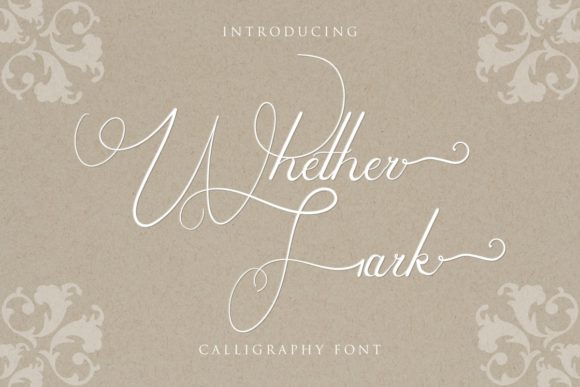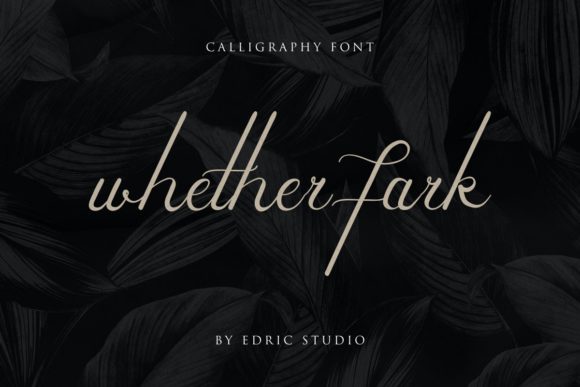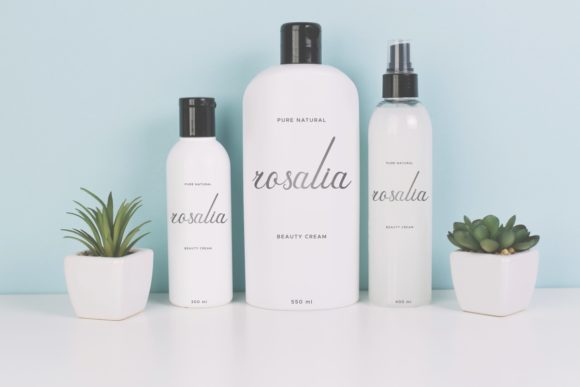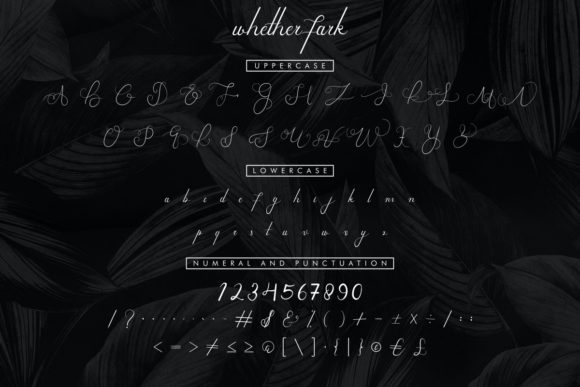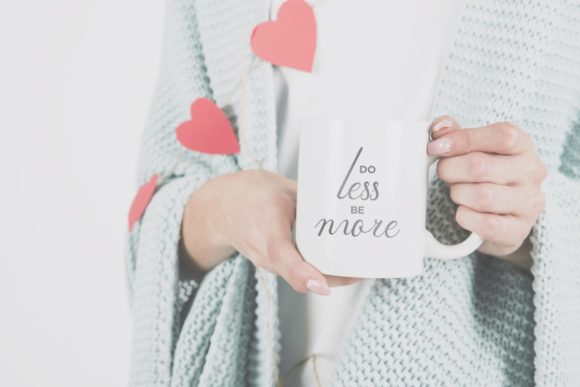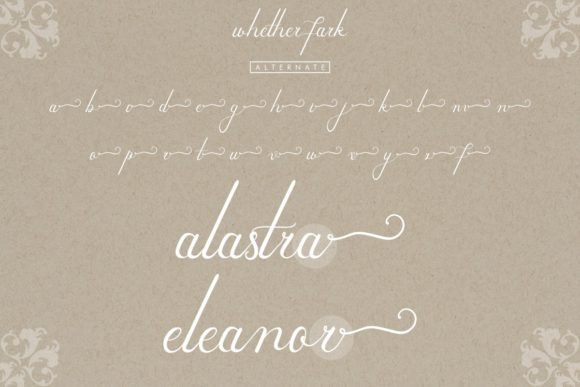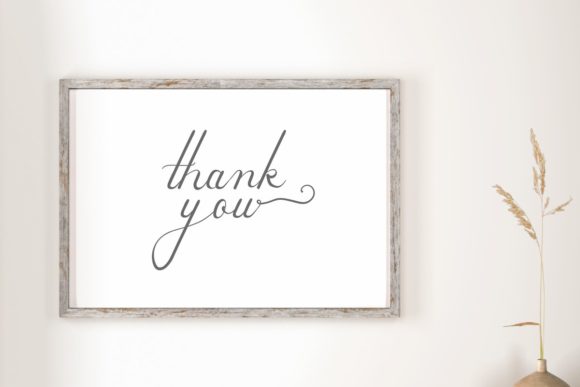
Whether Fark Font
About Whether Fark Font
Whether Fark is a gorgeous script font. This font has a stunning characters set, perfectly managed with well spaced and kerning. It will add an elegant and stylish touch to your designs.